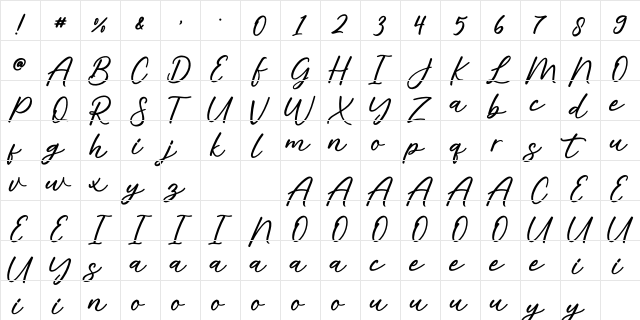
AlishaFree Regular
| Foundry | alphArt Co. |
| Designer | Agung Rohmat |
Design Context for AlishaFree Typeface
AlishaFree is a composed and adaptable typeface that performs quietly and consistently across a wide range of design contexts.